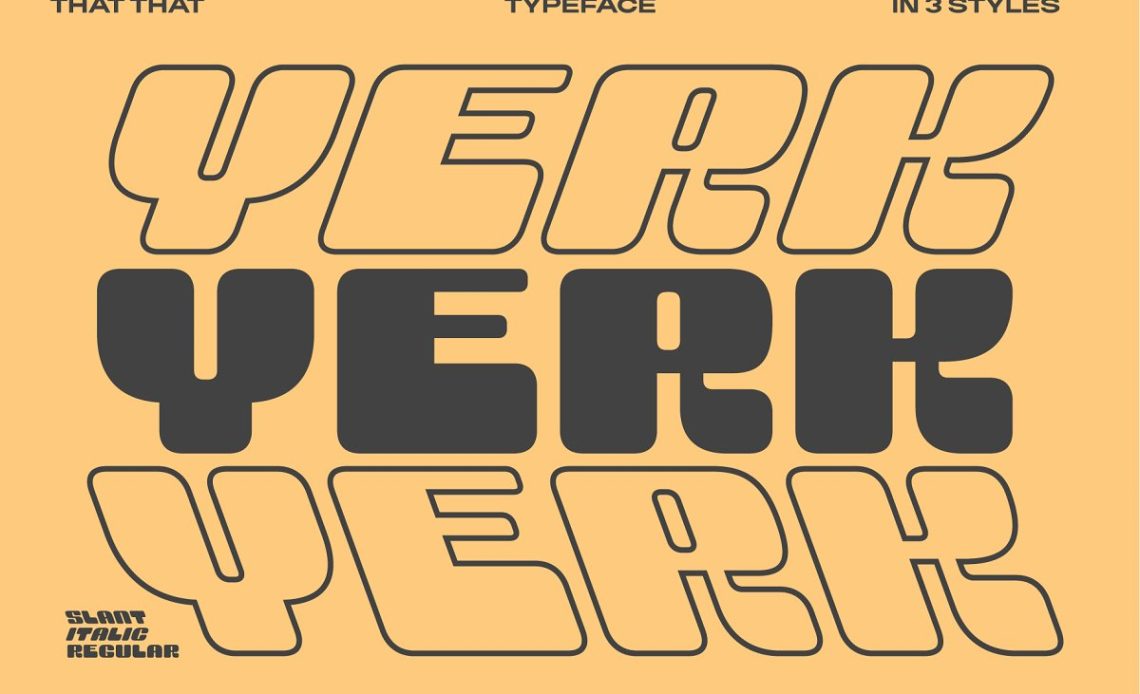
Introducing the Yerk Y2K Font Family - the perfect font for adding big impact and personality to your design! Created by Harbor Bickmore, Yerk is another modern Y2K-inspired font that comes in 3 styles - regular, italic, and slanted. With its bold weight and squared-off letters, this retro font is sure to catch the eye of anyone looking for a unique and bold font.
If you're looking for the best font for bold numbers, then Yerk is the perfect choice for you! This font includes caps, numbers, symbols, and free future updates, making it a versatile addition to your design toolkit. Whether you're creating a logo, branding, magazine, or Instagram post, Yerk is sure to elevate your design to the next level.
Don't settle for a boring font that blends in with the crowd - choose Yerk Y2K Font Family for a bold and eye-catching design that will make your project stand out from the rest!